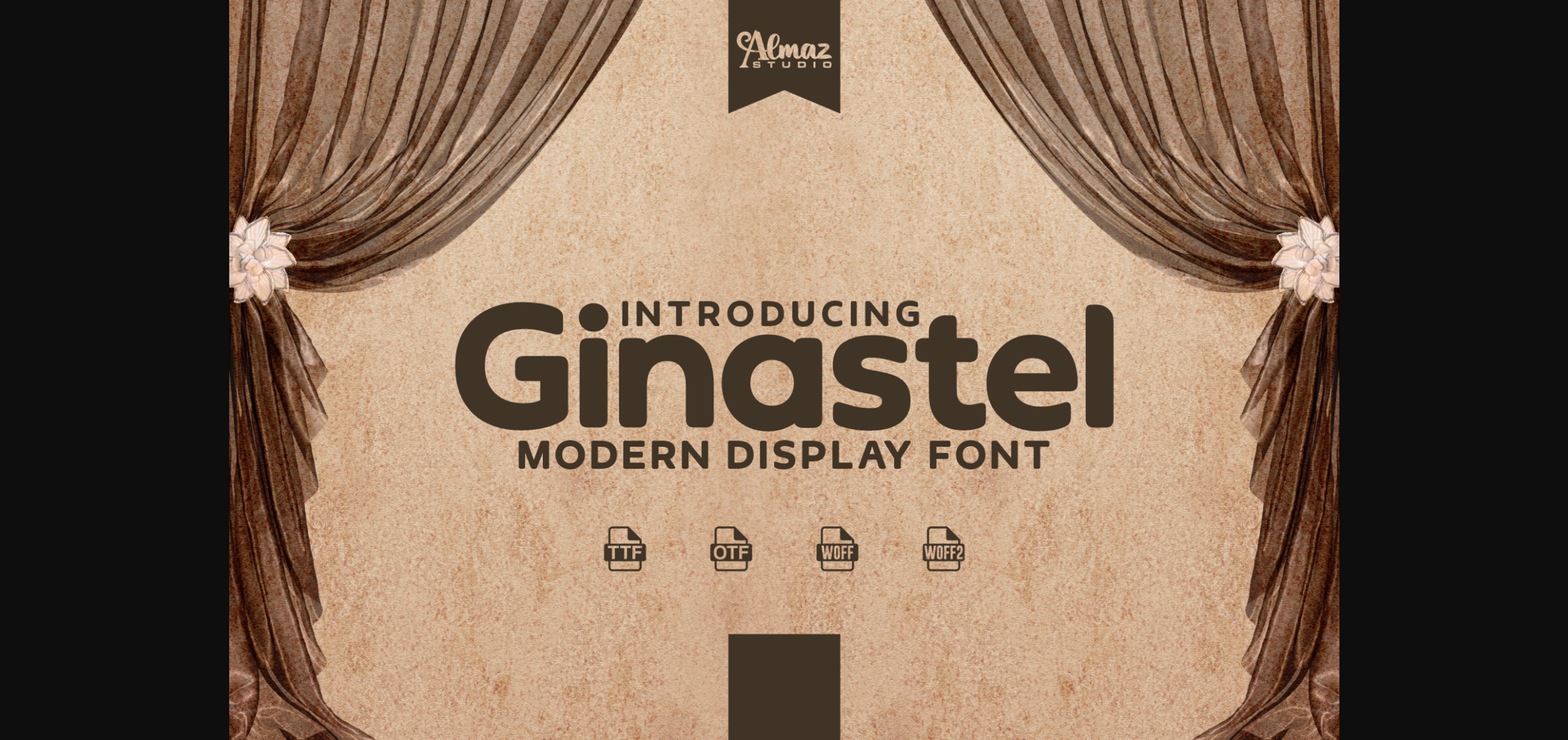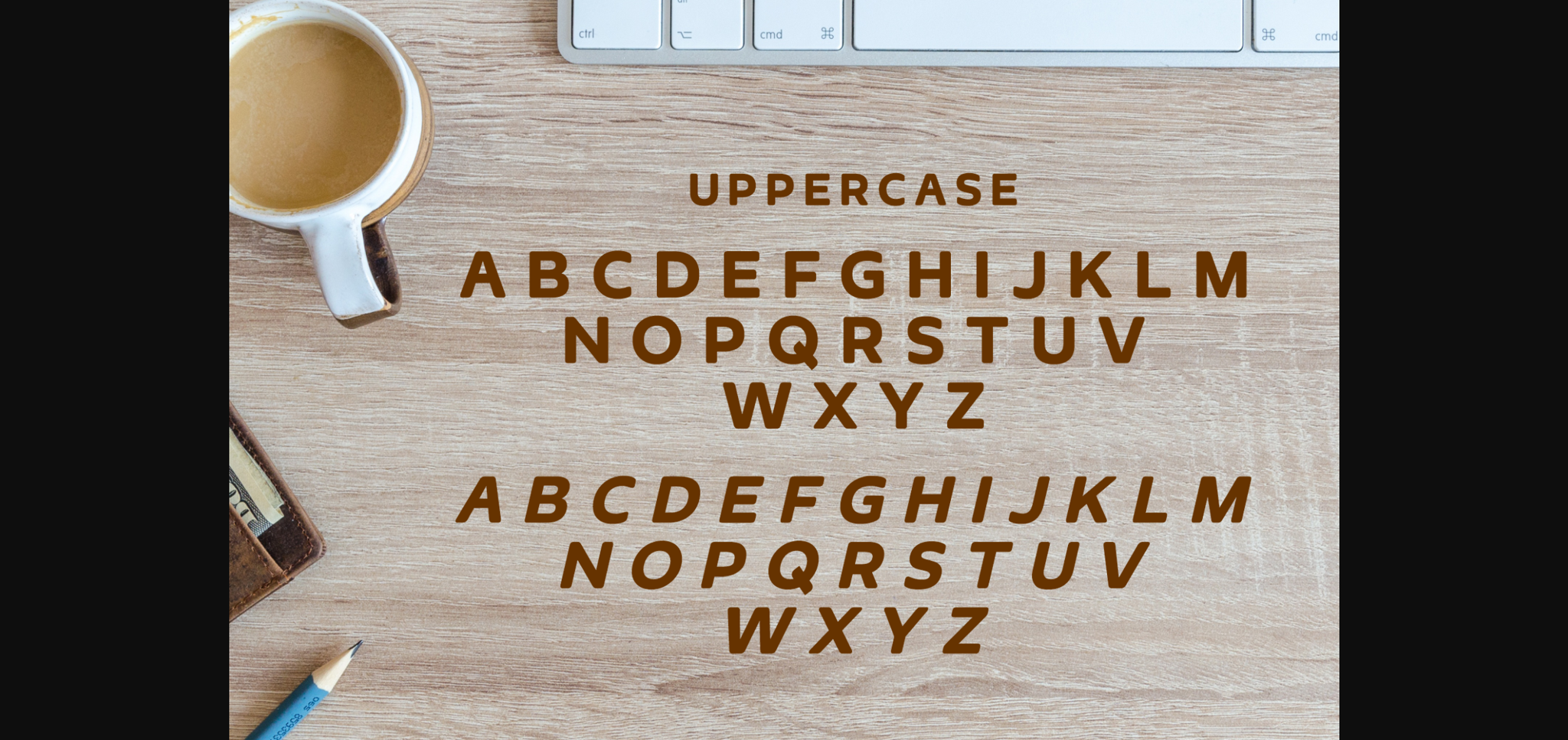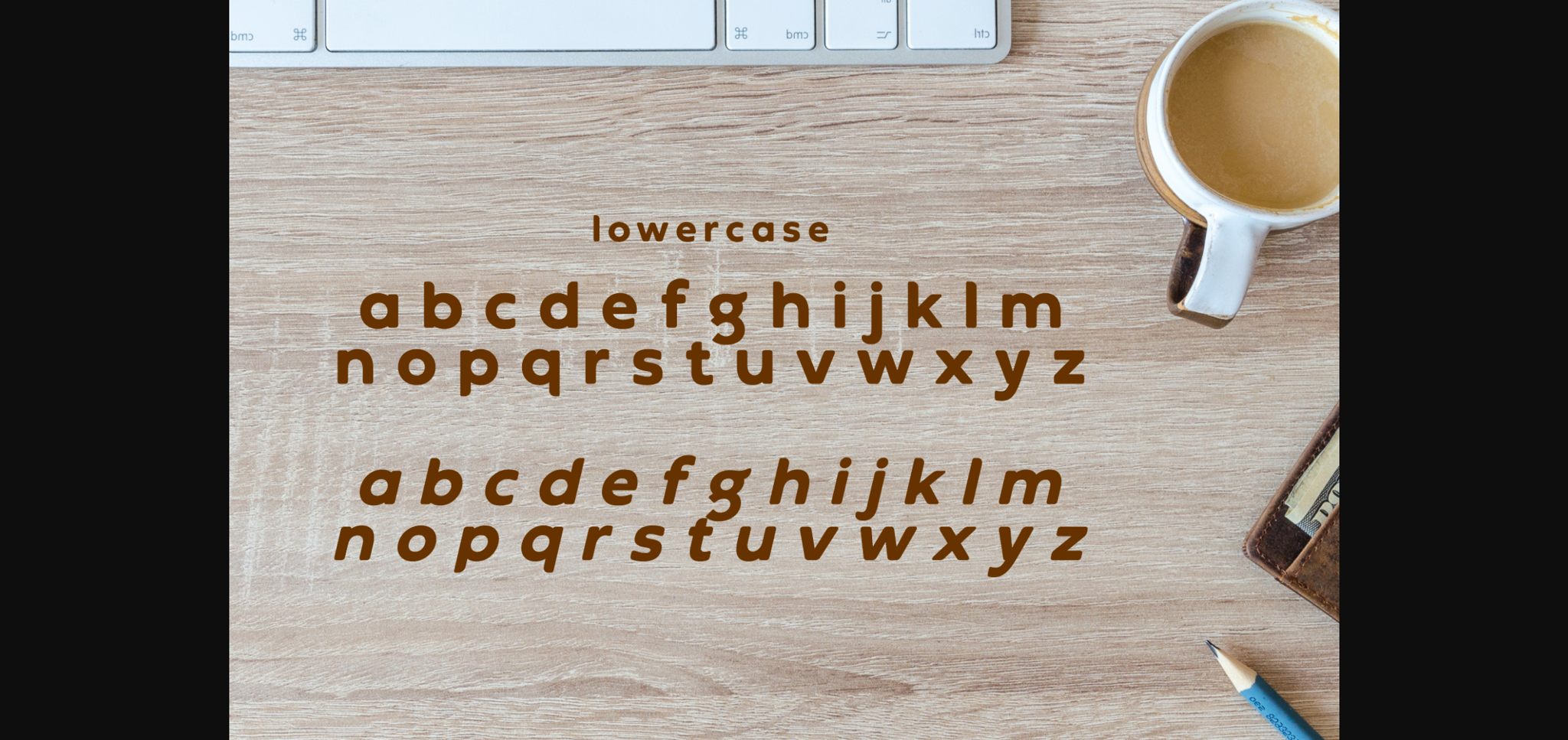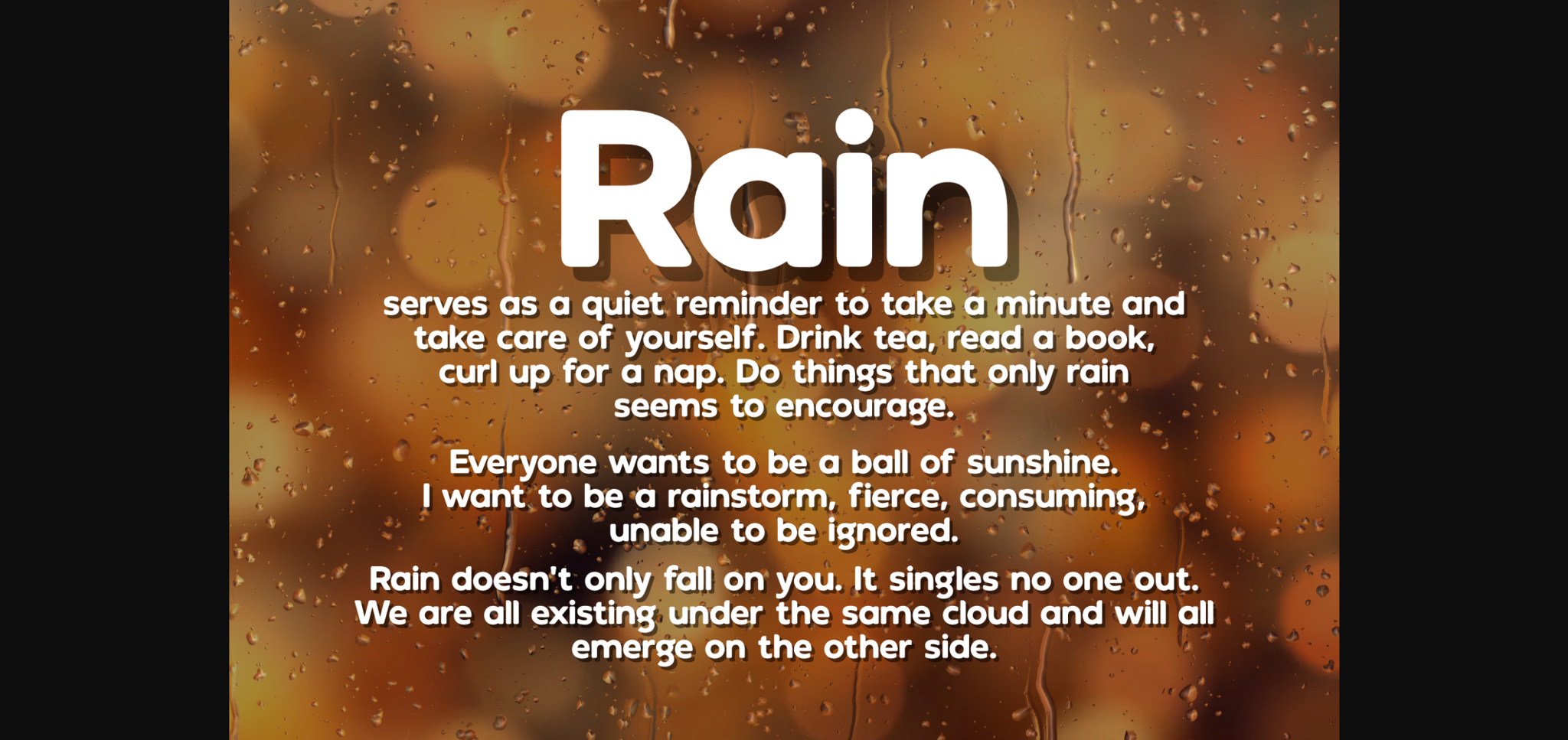
About Ginastel Font
Ginastel is an elegant sans serif font with a beautiful contrast. This font is perfect for your design needs such as layout designs, apparel, magazines, posters, logos, branding, and others. Ginastel can be used in its compressed widths to manage space on the printed page and on the screen.